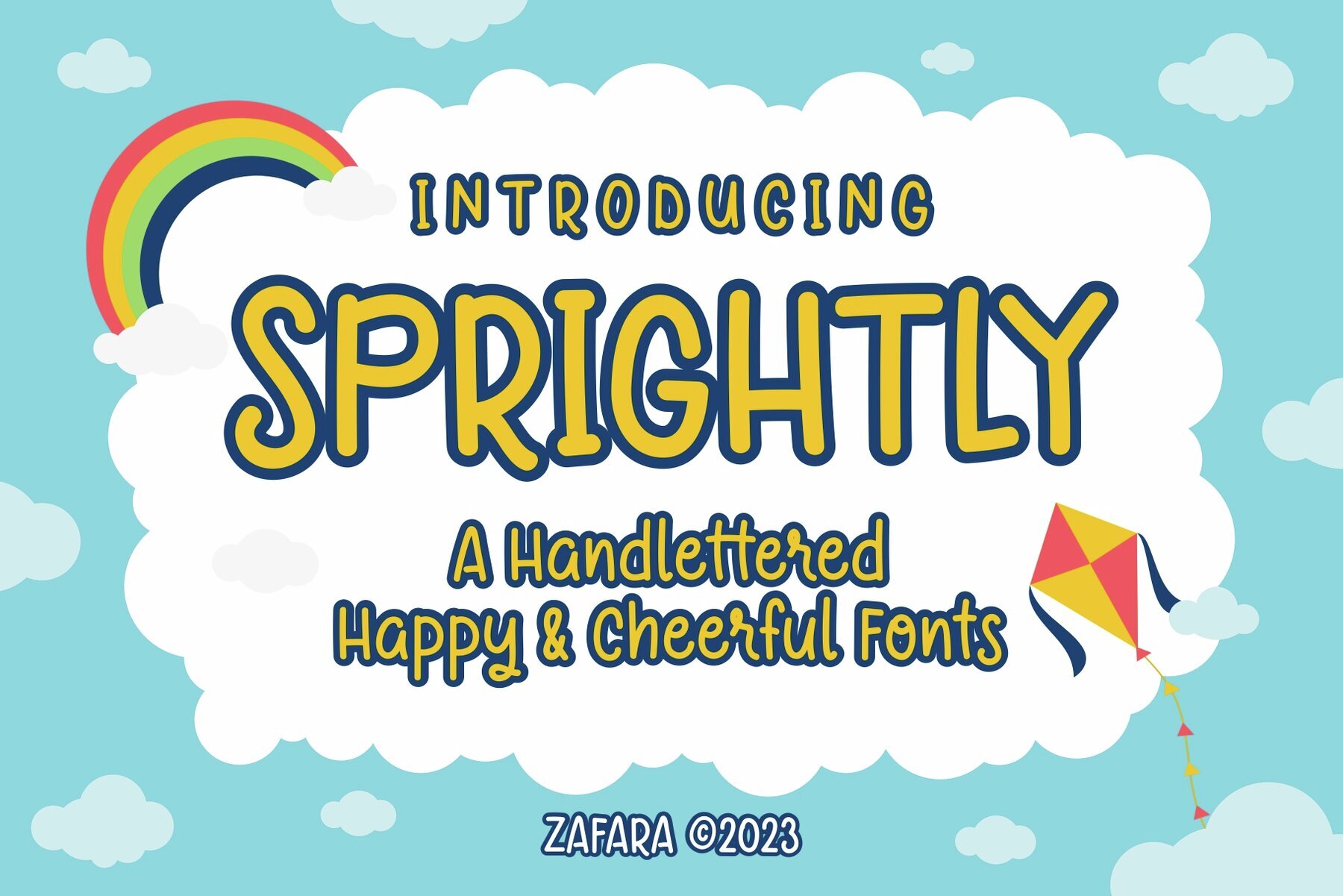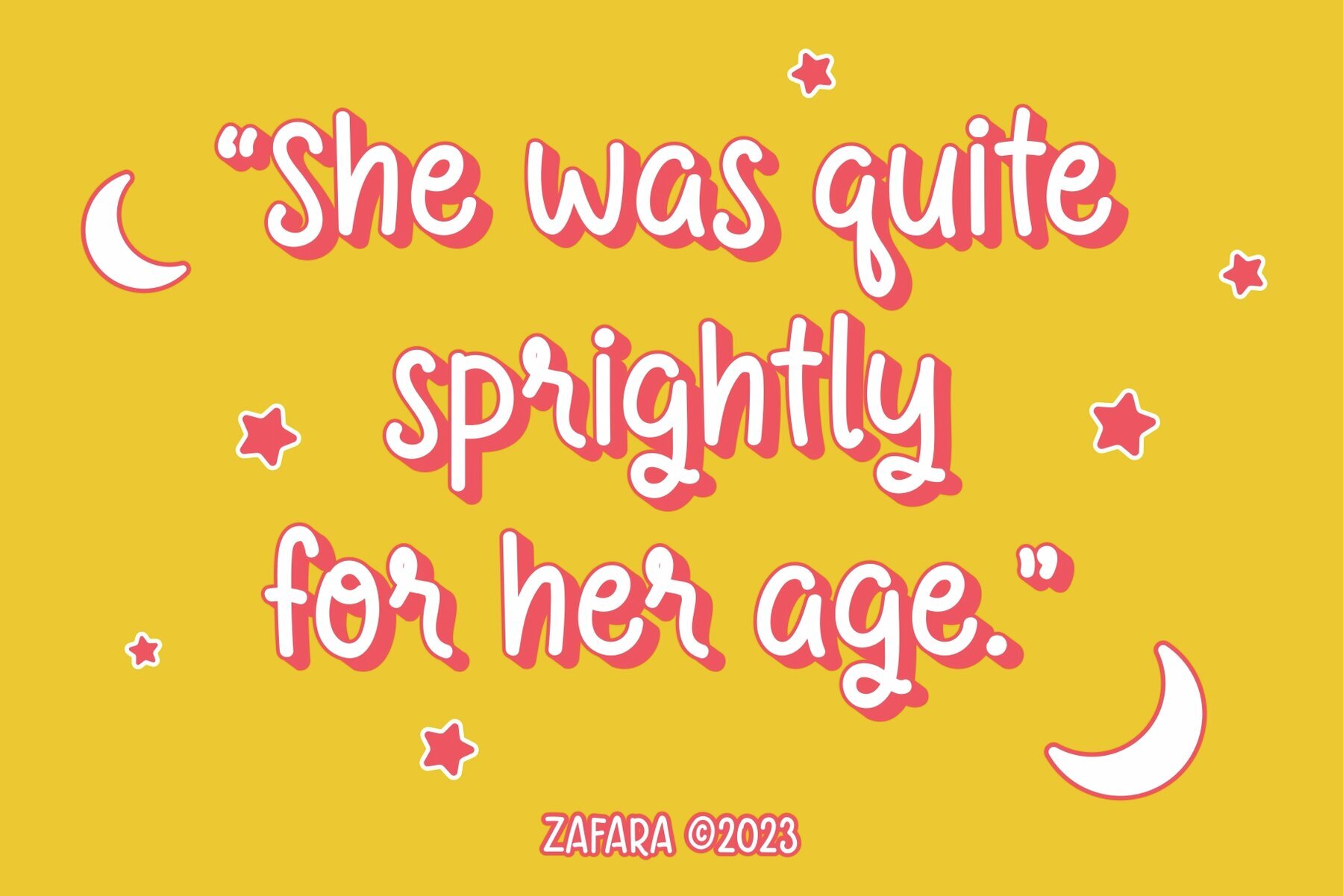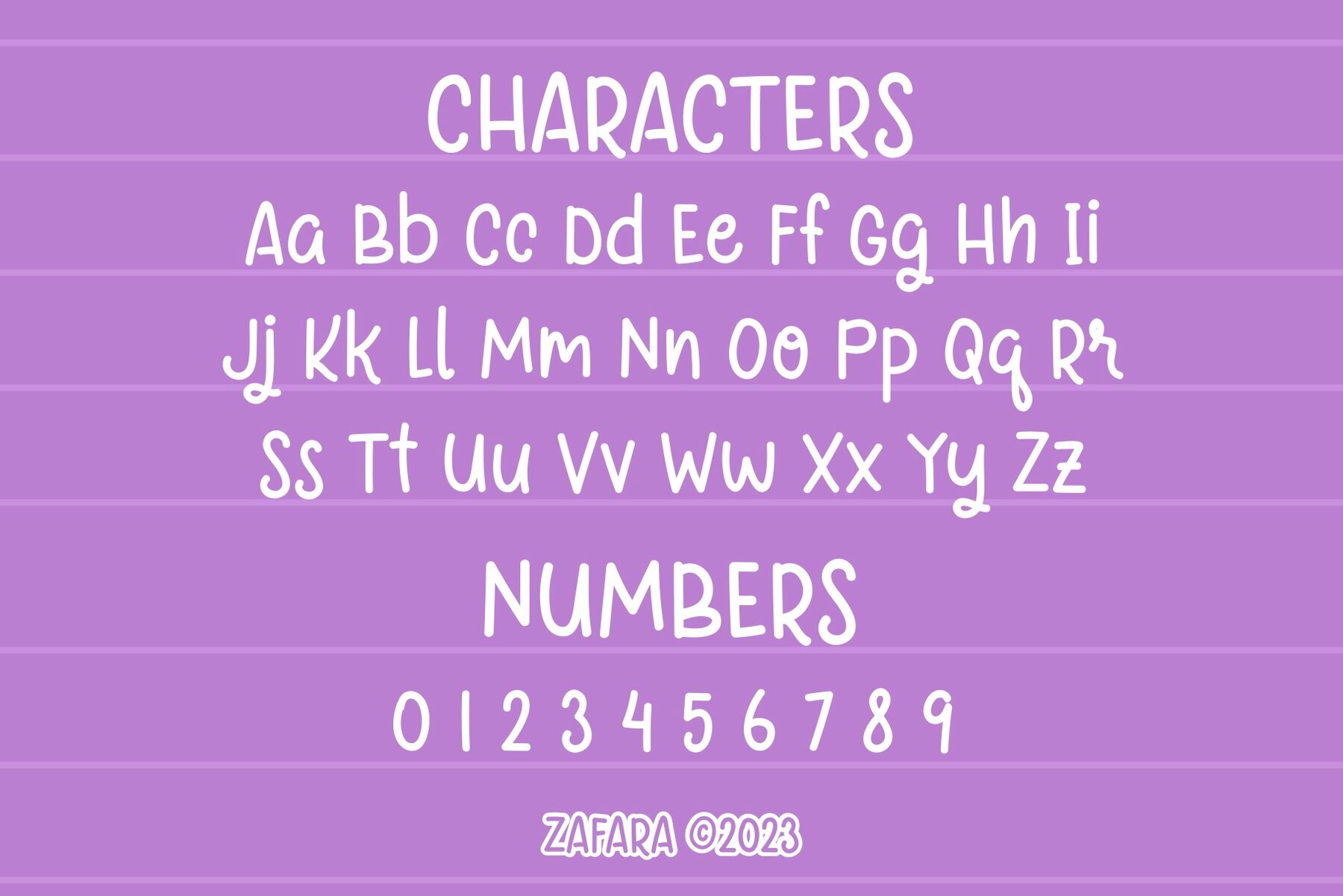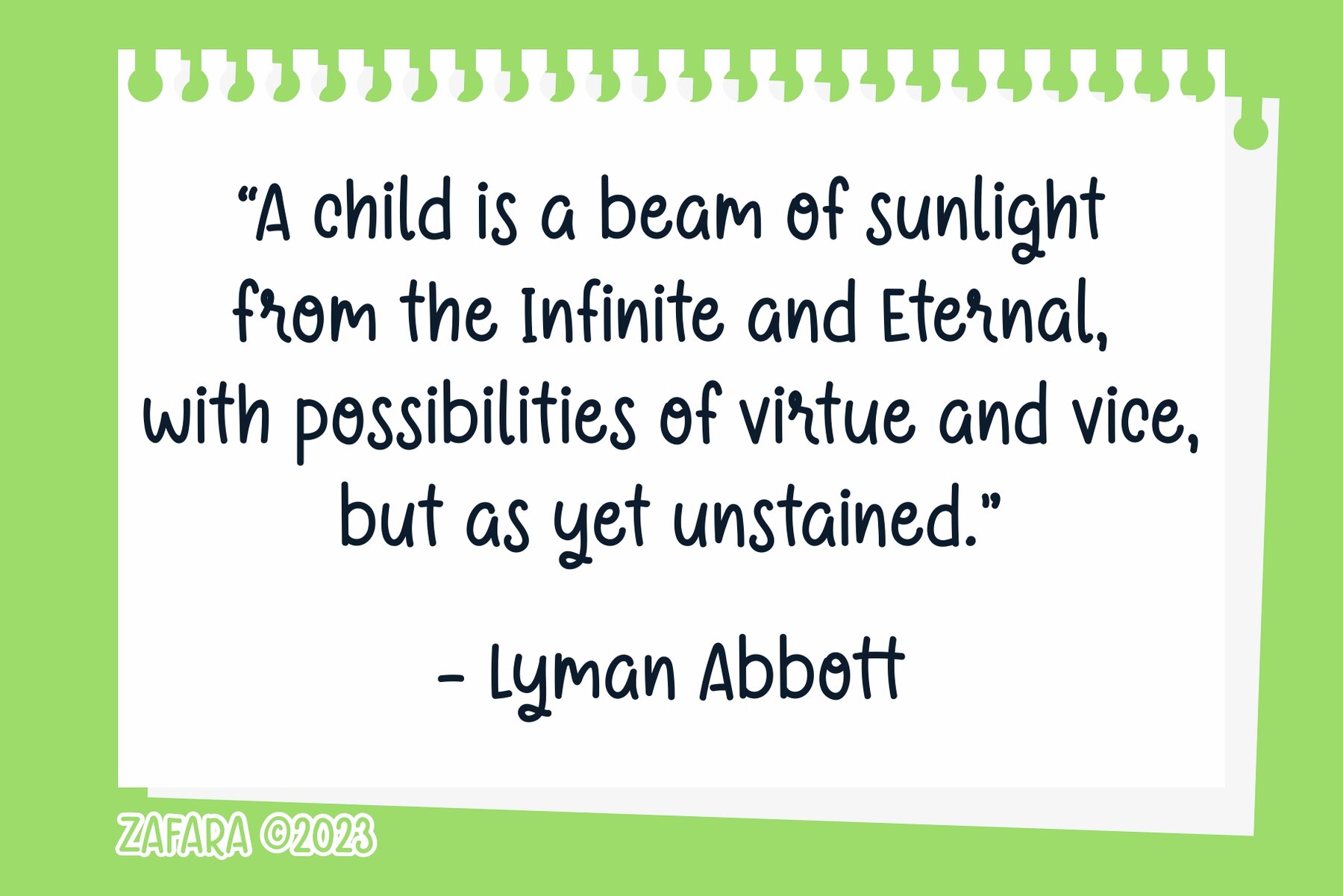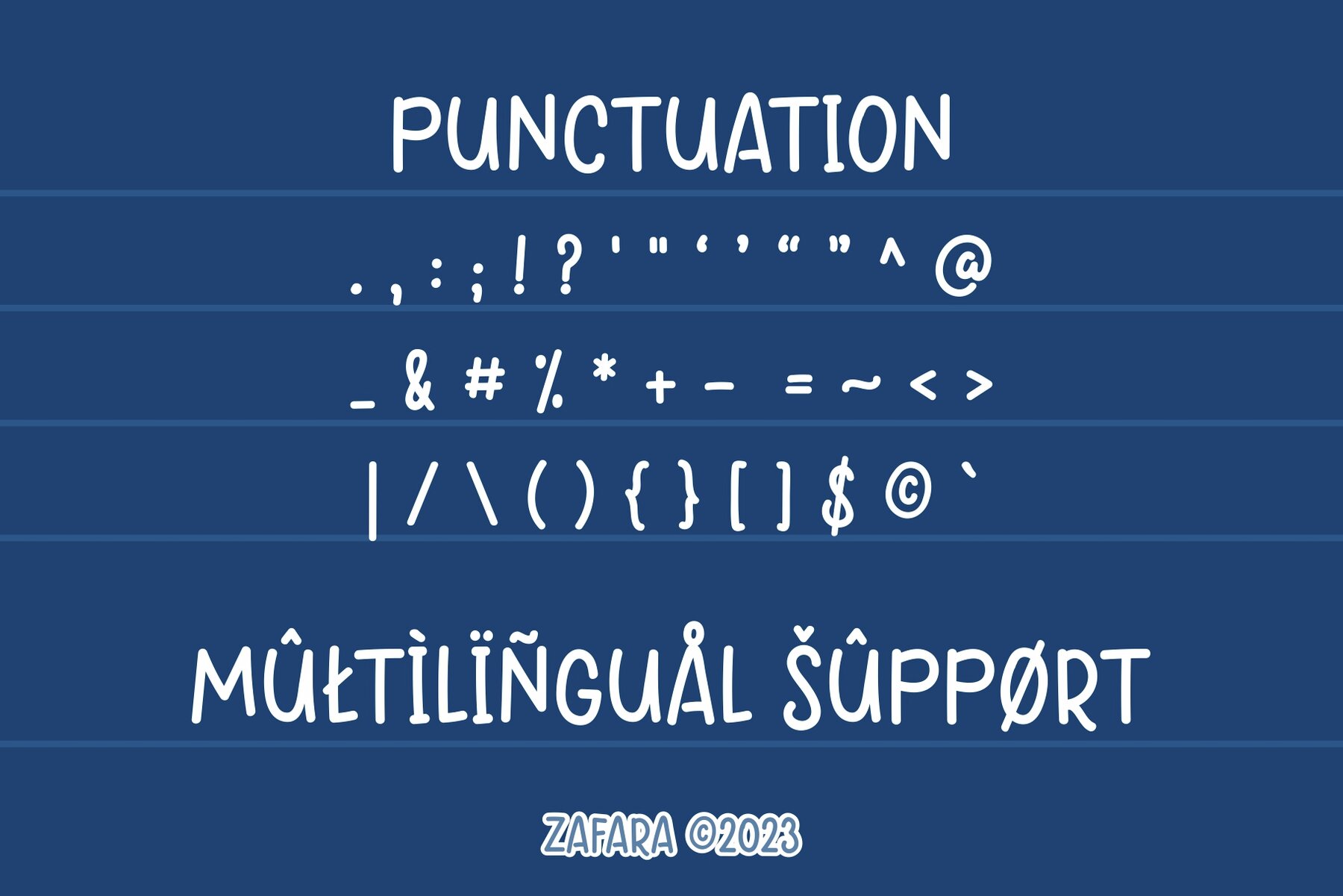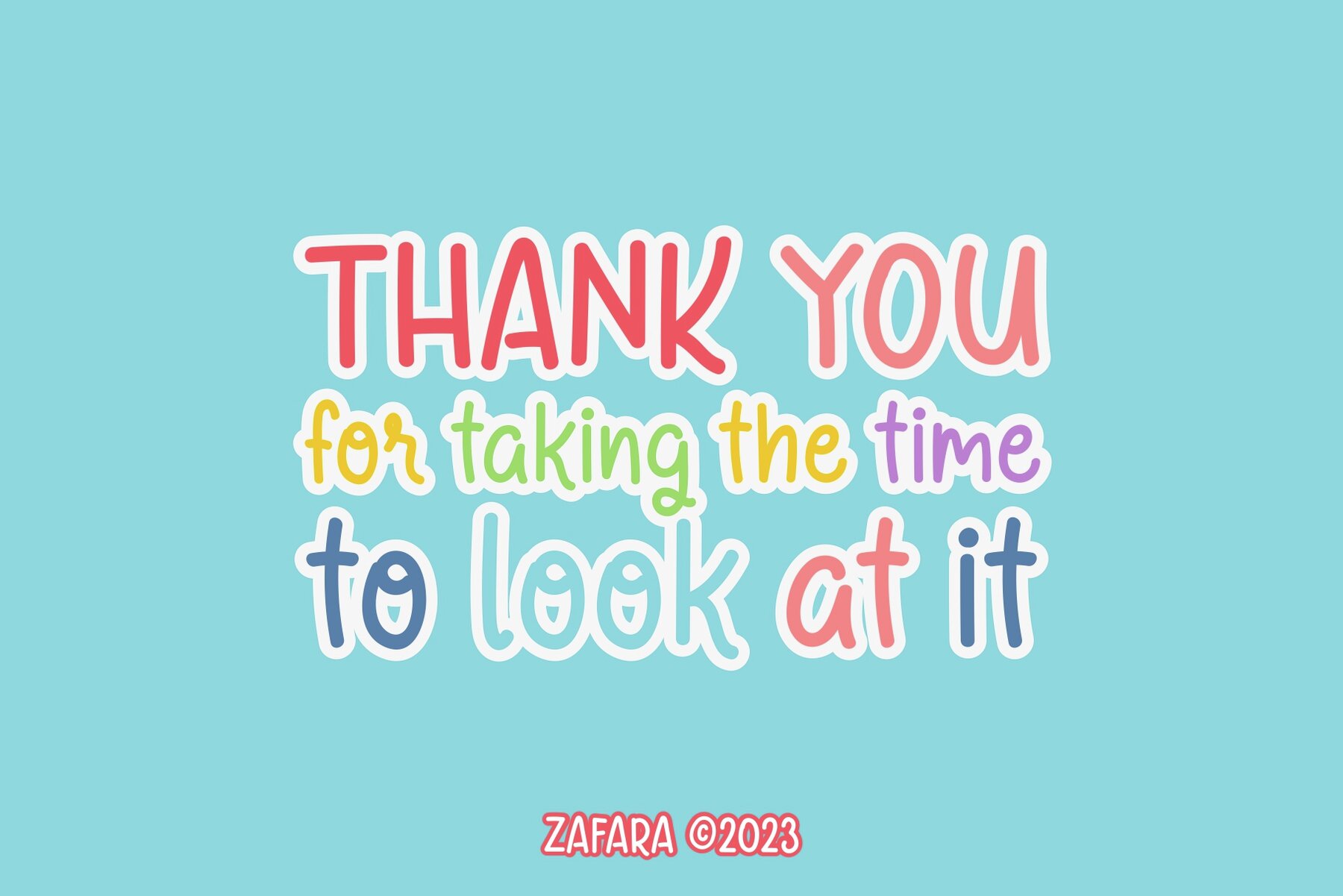
Sprightly Font
Sprightly
Sprightly is a font designed to evoke feelings of joy, happiness and cheerfulness. This font can be used in children’s products, marketing materials, and other contexts where a cheerful mood is desired. However, it can basically be used with a wider range of themes depending on your design needs. The details: